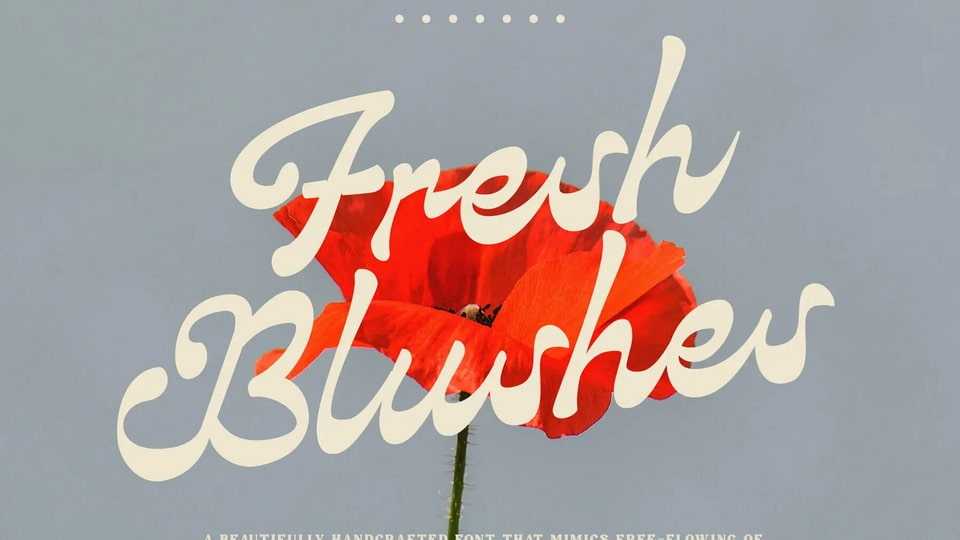
Download Fresh Blushes font, a stunning modern script typeface that embodies clean lines and timeless sophistication, combines contemporary aesthetics with simplicity.